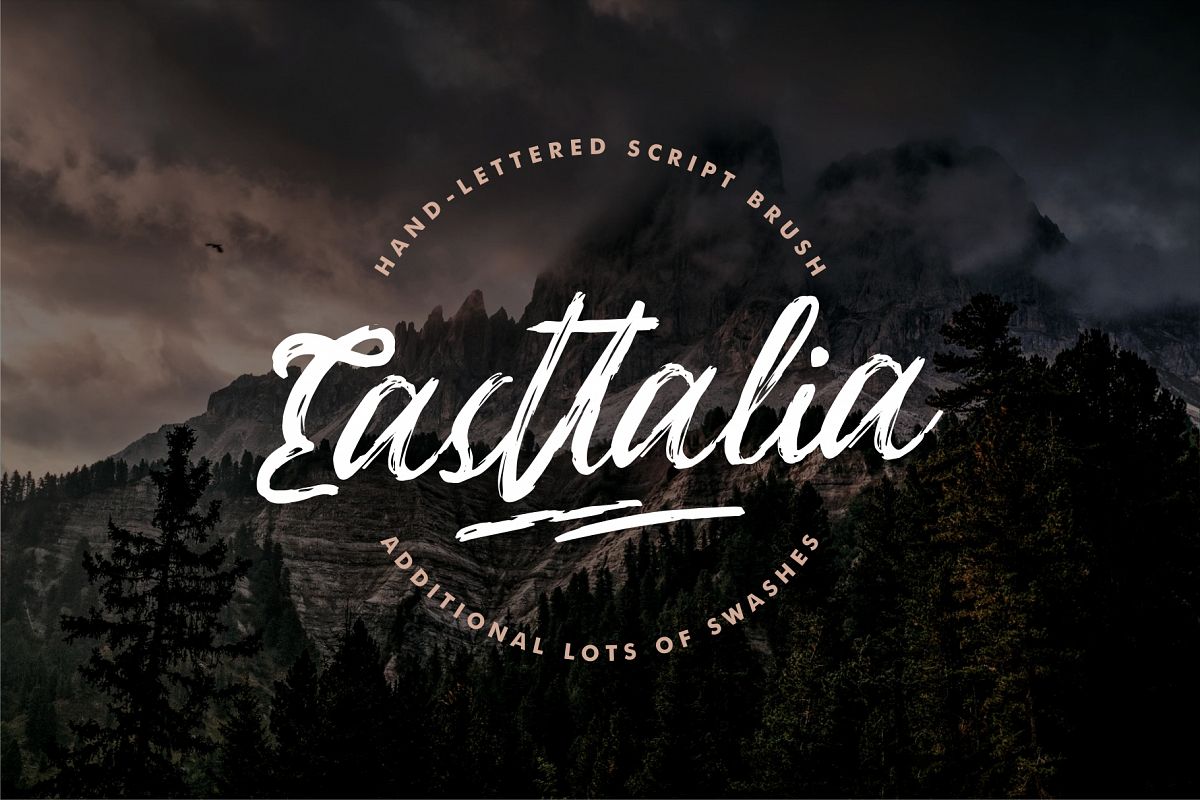
Easttalia Script Brush
Introducing EASTTALIA BRUSH SCRIPT
Easttalia is a brush script font with a brushes style. Based on hand-lettering script be the amazing fonts for every your project. This font is great for your next creative project such as logos, printed quotes, invitations, cards, product packaging, headers, Logotype, Letterhead, Poster, Apparel Design, Label, and etc.
Easttalia comes with included uppercase, lowercase, numerals, punctuations, common ligatures and also additional swash to let you customize your designs. LOTS OF BEAUTIFUL & BRUSHES SWASHESAnd this font was support for 26 languages, open PUA encoded (no need additional software)
Also, the advantages of Easttalia is:
• Lots of different Swashes
• Opentype Ligature
• Detailed brushes script